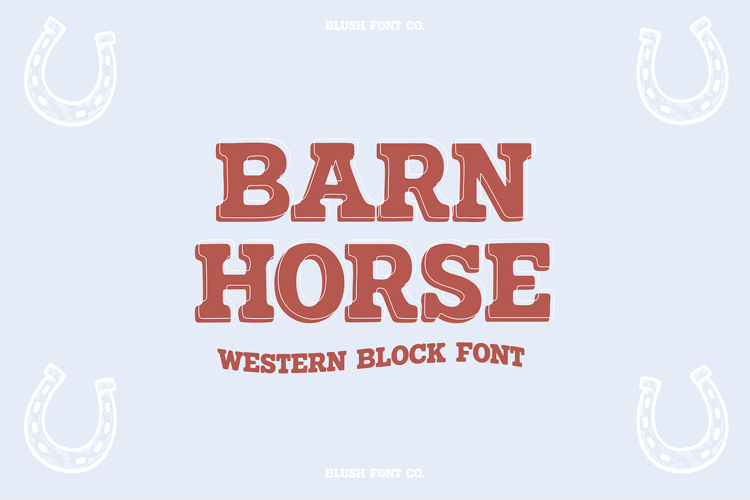
Bring Horse - Slab Serif Font
Unleash the spirit of the frontier with Bring Horse - Slab Serif Font, a typeface commanding attention through its robust character and undeniable presence. This exceptional slab serif seamlessly blends vintage charm with modern sophistication, offering a powerful tool for conveying strength, authenticity, and rugged elegance. Its distinctive serifs and solid structure ensure remarkable legibility, making it ideal for impactful visual communication.
Meticulously crafted, Bring Horse - Slab Serif Font boasts an assertive aesthetic that resonates with timeless quality. Each character projects enduring craftsmanship, contributing to a cohesive and memorable visual identity. The font’s inherent weight and balanced proportions are particularly effective for messages requiring both gravitas and approachable appeal, establishing a versatile foundation for any design seeking a bold statement.
Expand your global reach and connect with diverse audiences effortlessly. With its extensive multilingual support, Bring Horse - Slab Serif Font adapts seamlessly across global markets, making it incredibly versatile for international projects. This feature ensures your brand’s voice remains consistent and powerful, no matter the language, reinforcing its value as a truly global design asset for brand consistency.